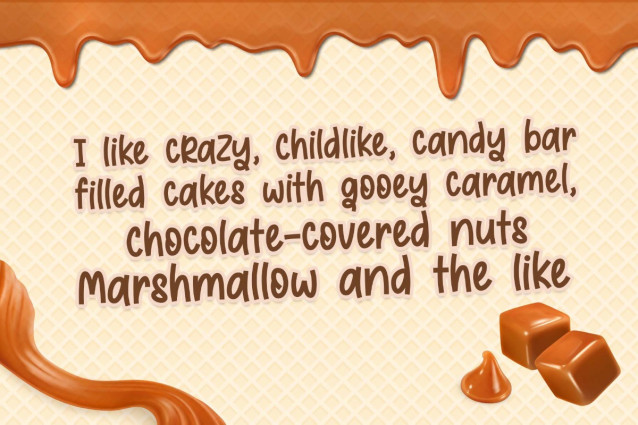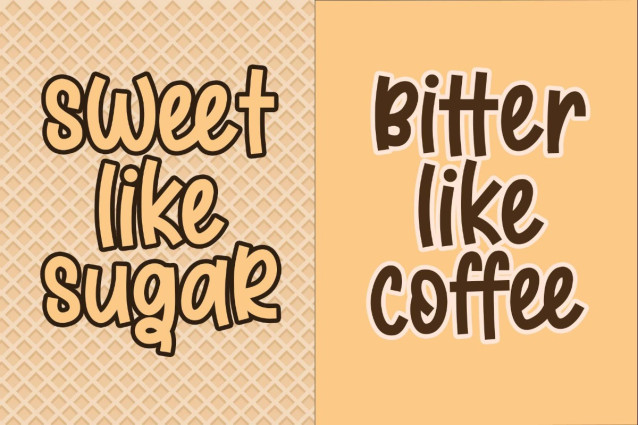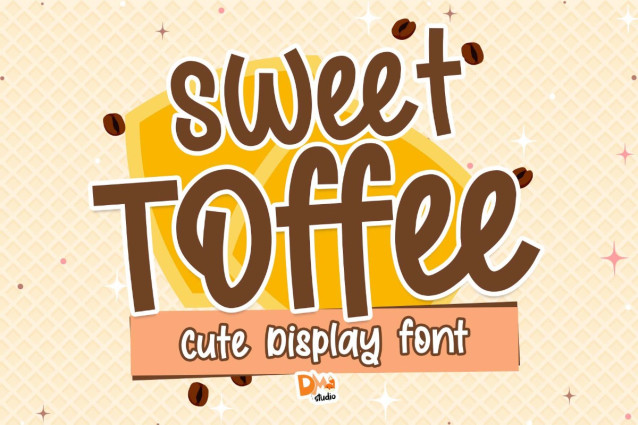
Sweet Toffee Font
Sweet Toffee Font is a delectable and versatile typeface designed to infuse your creative projects with a warm and inviting vibe. With its smooth letterforms and sweet style, this font is perfect for various applications, from branding to social media graphics. Elevate your designs with the delightful and comforting aesthetic of Sweet Toffee Font.